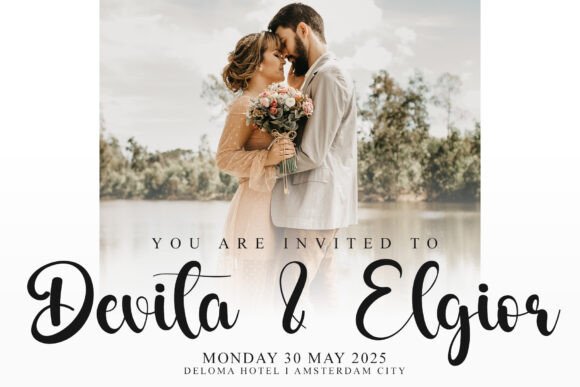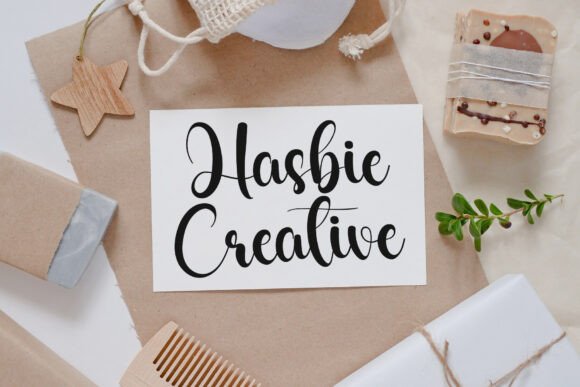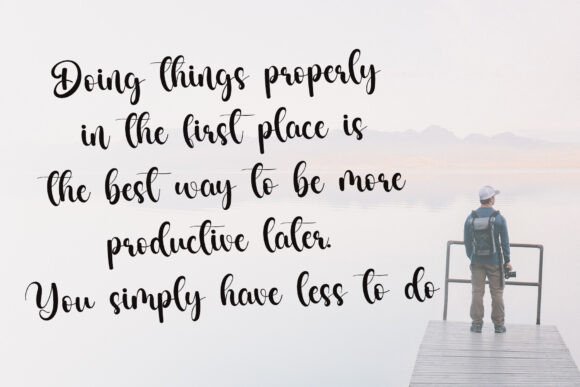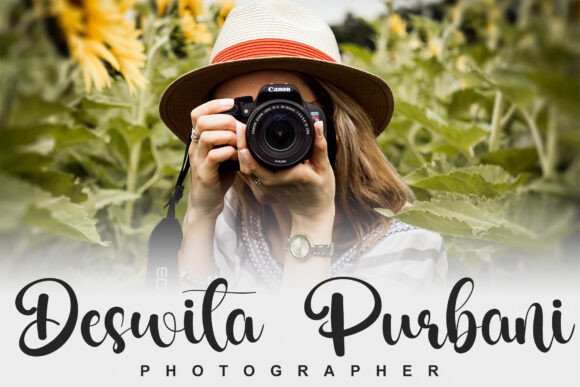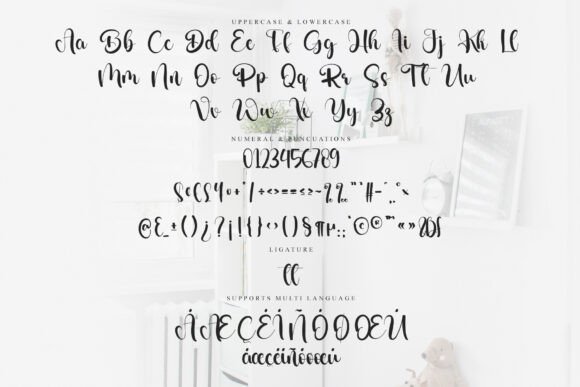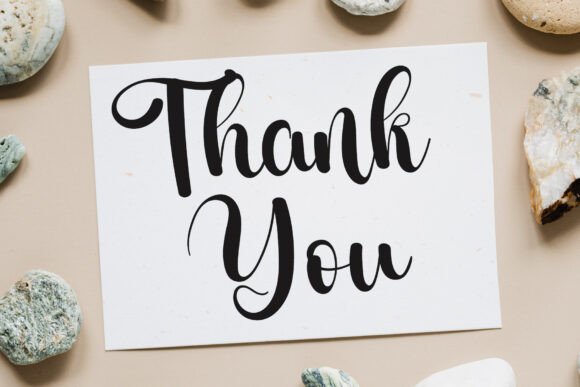
Introduction to Headlines Font
As a designer, there’s nothing quite like the thrill of discovering a new font that perfectly captures the essence of your creative project. It’s that moment when the words flow effortlessly onto the page, and the design begins to take shape. For me, that moment came when I stumbled upon the enchanting Headlines Font. Its sweet and cursive handwritten style is a breath of fresh air, adding a touch of whimsy and romance to any design.
Whether you’re working on a branding project, a wedding invitation, or a fashion lookbook, the Headlines Font is the perfect companion. Its high-quality design and versatility make it a valuable resource for any creative project, from marketing promotions to greeting cards. With a transparent background option available, you can easily integrate it into your designs, giving them a sophisticated yet casual look.
Key Features of Headlines Font
- High-quality font design for creative projects, suitable as a design resource.
- Transparent background option for easy customization and blending with any design.
- Designed with a modern aesthetic, ideal for headings, titles, and other prominent text elements.
Honest Review: Headlines Font
As a designer, I’ve had the chance to work with various design resources, but the Headlines Font stands out for its unique style and versatility. This font is perfect for any creative project that requires a bold and eye-catching headline.
What works well: ✨ The Headlines Font comes in multiple styles, including a transparent background option, which makes it easy to overlay on images or videos. The font is also highly customizable, allowing me to adjust the size, color, and spacing to fit my design needs.
- High-quality design that looks great on any screen
- Multiple styles and customizable options
However, there are some limitations: ⚠️ The font may not be suitable for body text, as it can be difficult to read in smaller sizes. Additionally, some users may find the font too bold or overwhelming, depending on their personal design style.
Overall, I’m impressed with the Headlines Font and would recommend it for any designer working on a creative project that requires a high-quality, attention-grabbing headline.
Getting the Most Out of Headlines Font
To get the most out of the Headlines Font, be sure to use it with a transparent background to make it stand out. Experiment with different font sizes, colors, and combinations to create a unique look.
The Headlines Font is perfect for:
- Creating attention-grabbing headlines and titles.
- Designing posters, flyers, and brochures.
- Developing branding and logo designs.
Playfair Display is a luxurious and elegant serif font perfect for high-end creative projects. It features a transparent background and intricate details, making it ideal for use in headings and titles. Playfair Display is a great alternative to Headlines Font as it offers a more sophisticated and refined look. However, it may be less suitable for casual or informal projects.
Montserrat is a modern sans-serif font designed specifically for use in digital media. It is a great design resource for creating high quality and visually appealing headings and titles. Montserrat is a great alternative to Headlines Font as it offers a clean and minimalist look while being highly legible and versatile. It is ideal for use in creative projects that require a modern and sleek design.